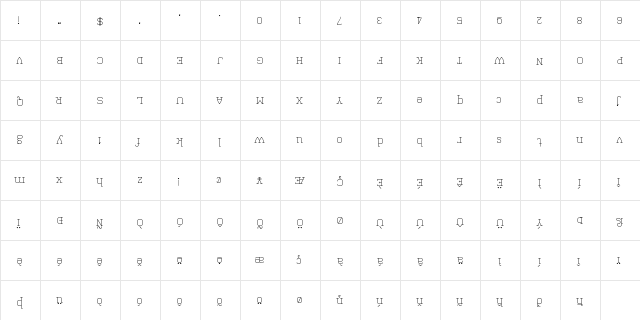
Upside down Regular
| Designer | CMunk |
Design Context for Upside down Typeface
Upside down takes a measured approach to typography — its balanced proportions and neutral character make it a reliable workhorse for both digital and print work.